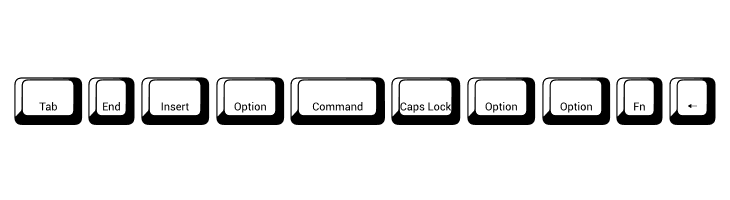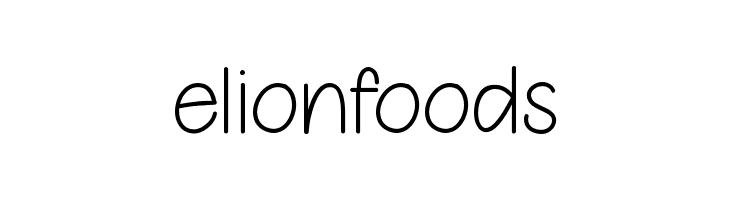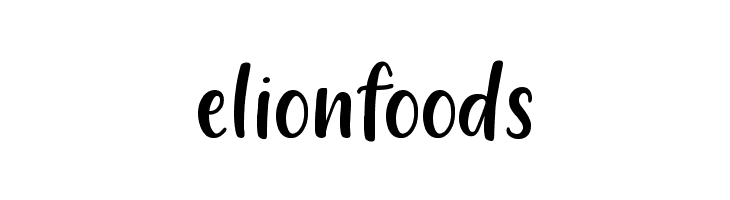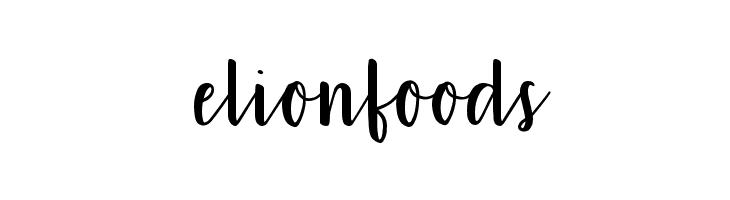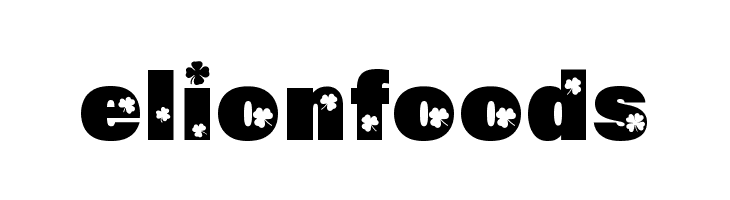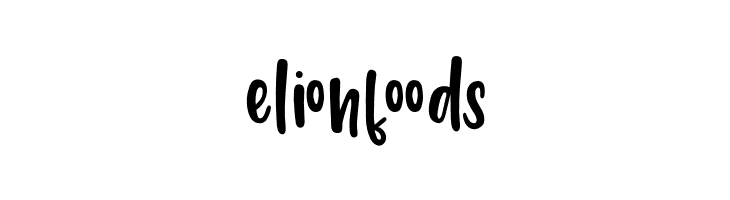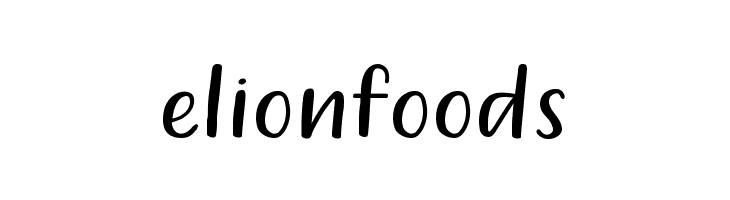
• 212 Dreamery Sans Demo
A playful, handwritten-style font with smooth, rounded strokes.
• 212 Girly Stuff
A decorative icon font with feminine and playful motifs.
• 212 Keyboard
A modern, keyboard-inspired font with characters enclosed in keycap-like boxes.
• 212 Leahlee Sans
A playful, handwritten font with smooth, flowing strokes and a casual style.
• 212 Orion Sans
A modern, geometric sans-serif font with clean lines and balanced spacing.
• 212 Phoenix Sans
A bold, playful handwritten font with dynamic curves and a friendly style.
• 212 Queenie Sans
A playful, modern font with rounded, slightly condensed characters.
• 212 Saint Paddy Demo
A bold, decorative font with shamrock motifs, perfect for festive themes.
• 212 Warmheart Demo
A playful and elegant handwritten script font.
• 212 Warmheart Sans PERSONAL USE
A playful, handwritten-style font with smooth curves and a casual appearance.